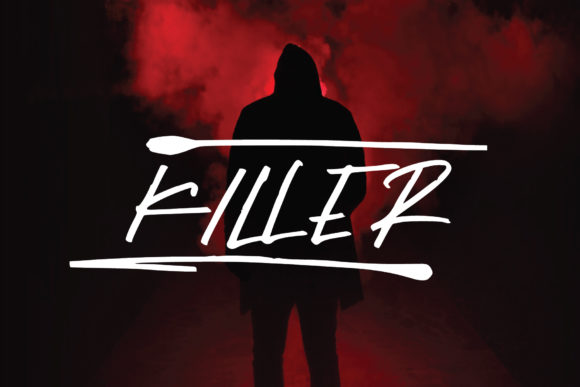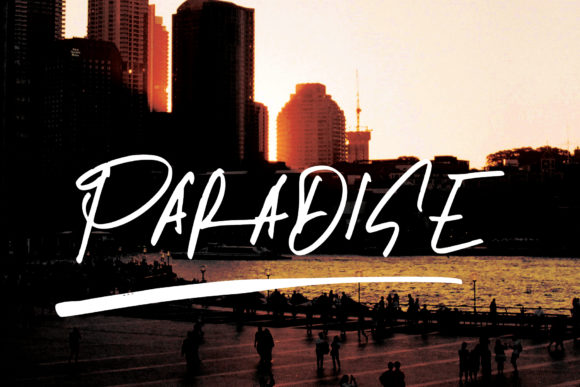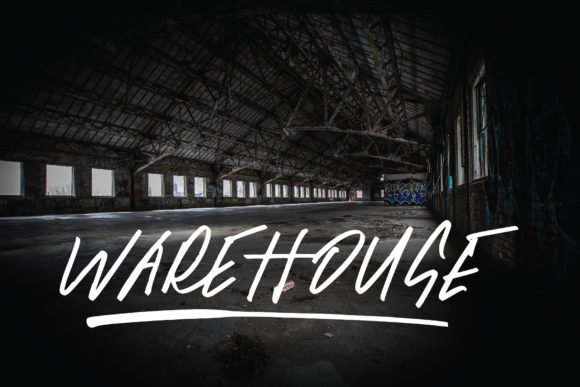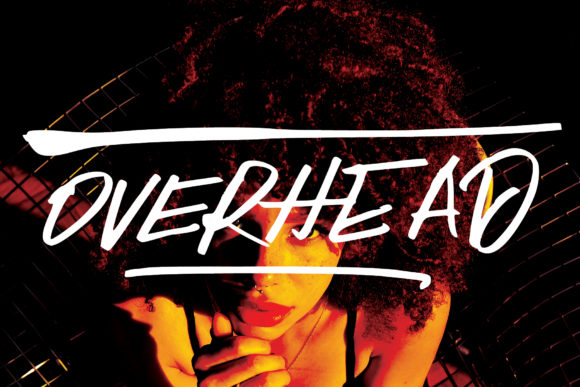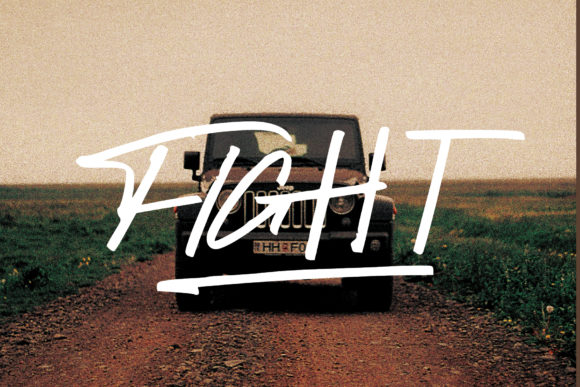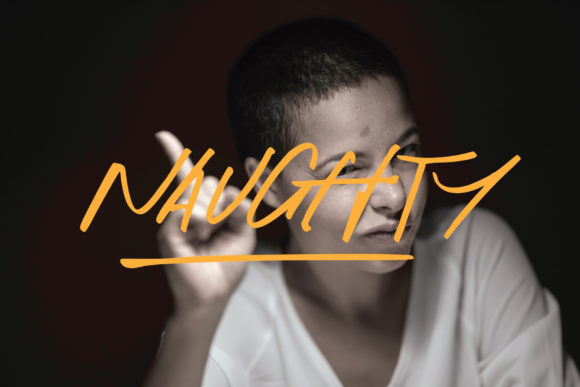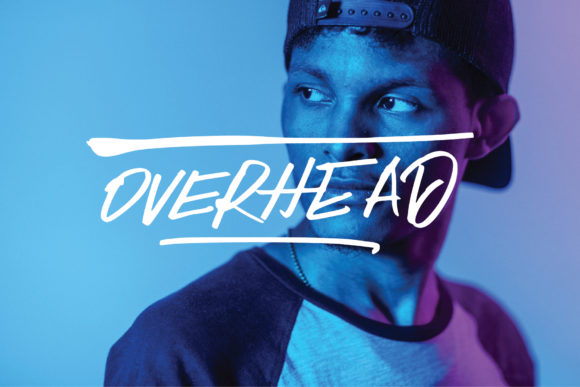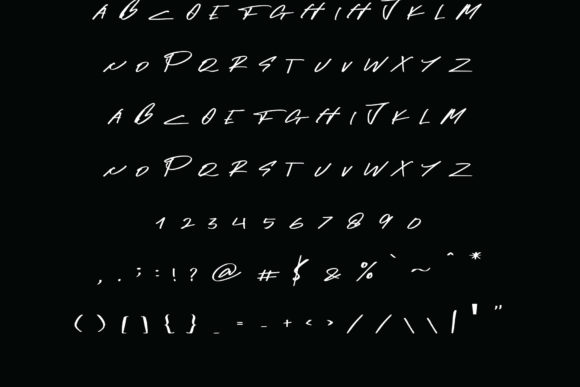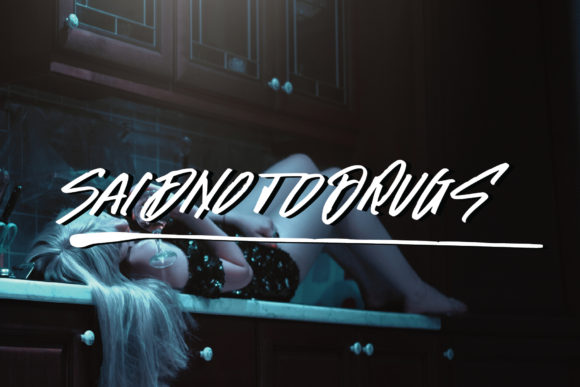
Killer Font
About Killer Font
Killer is a casual and modern script font. It features an incredibly classic style, while still keeping a friendly feel. Killer is the perfect font for making original and outstanding designs.